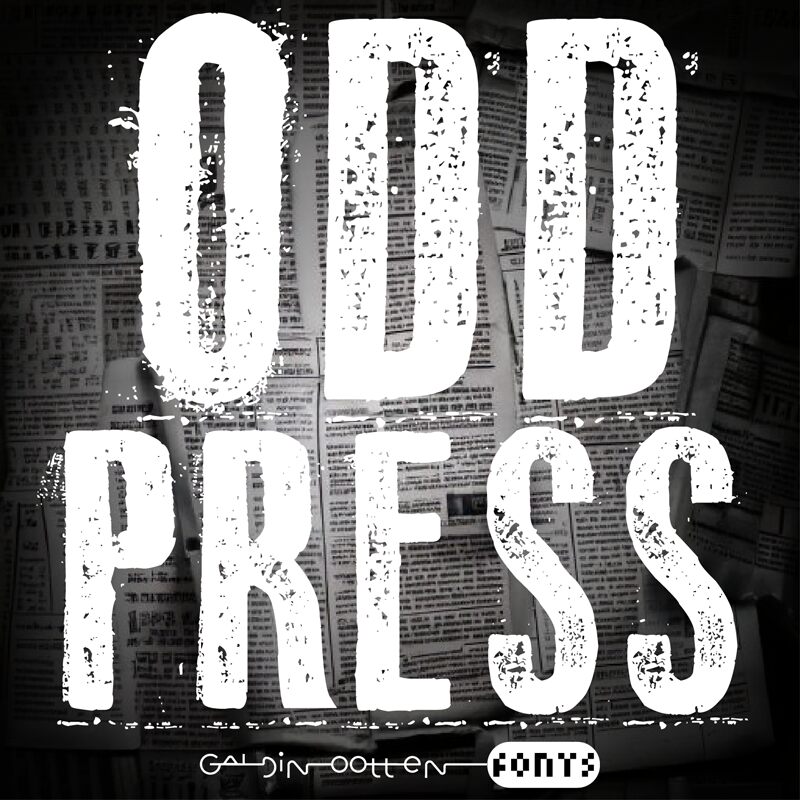
Odd Press Regular
Odd Press font by Galdino Otten Fonts is a grunge-textured display font with a distressed appearance and vintage aesthetic. Its condensed width also combines retro influence with an industrial feel to allow for an overall strong presence suitable for brands and businesses.